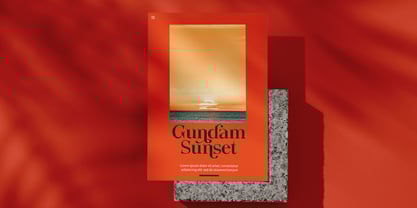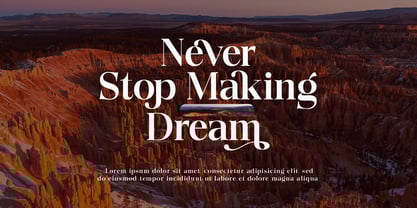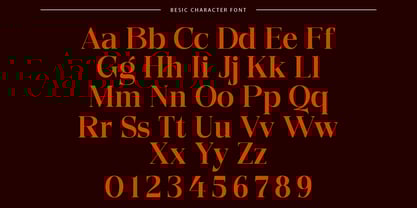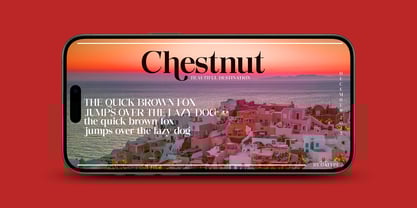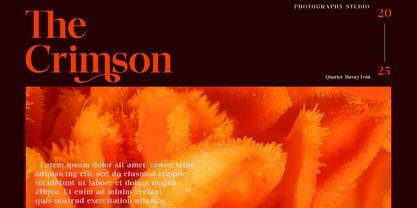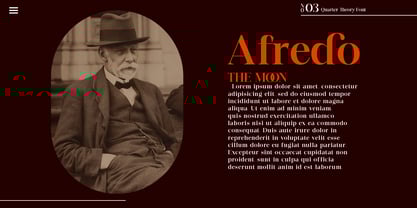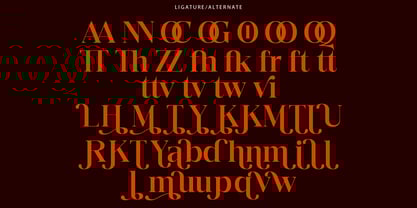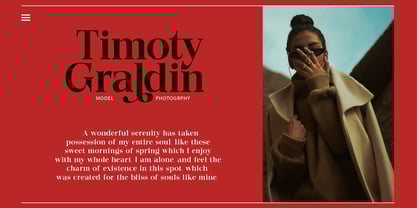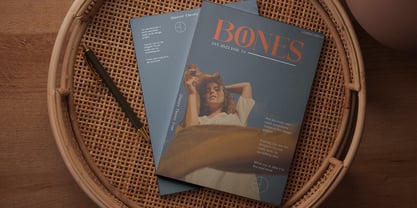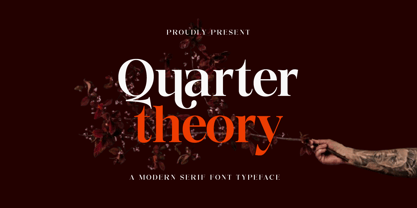
Quarter Theory
by Propertype
The Quarter Theory Font Family was designed by Nadia Auliana and published by Propertype. Quarter Theory contains 1 styles.
The Quarter Theory font is a serif typeface characterized by its elegant, classic, and sophisticated style. Its distinctive feature lies in the small decorative strokes or "serifs" at the edges of the letters, making it suitable for editorial design, branding, and creative projects that aim to convey a luxurious and professional impression. Quarter Theory is often used for headlines, logos, or visual elements requiring strong visual appeal.